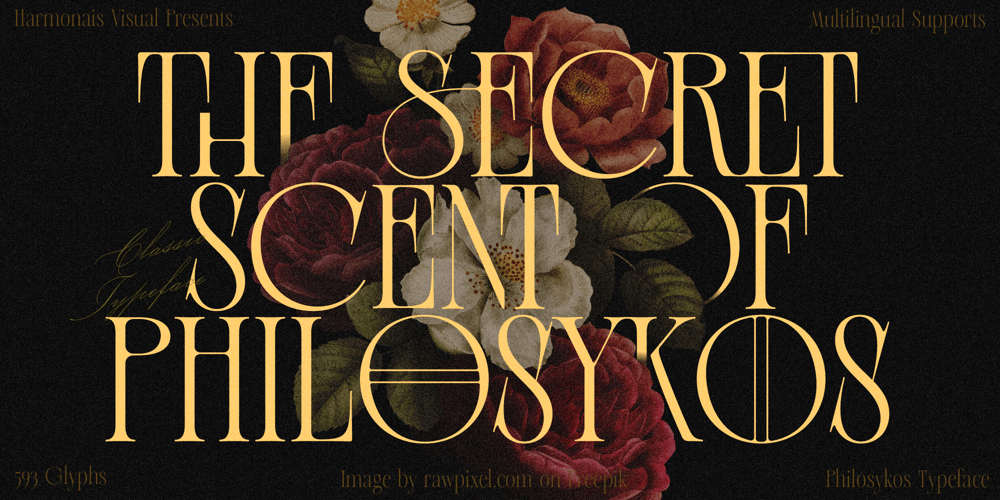
HV Philosykos Font Family was designed by Ivy Xuyen Phan and published by Harmonais Visual. HV Philosykos contains 4 styles and family package options. Looking to add a touch of refinement to your designs? Look no further than Philosykos. With its carefully crafted details and more than 80 ligature choices, Philosykos is the perfect choice for adding a cultured, sophisticated look to your artwork.This typeface comes in four styles – Regular, Italic, Bold, and Bold Italic – making it versatile enough for a wide range of designs. Whether you’re creating a logo, designing packaging, or working on a book cover, Philosykos will help elevate your work to the next level.So if you’re looking for a typeface that exudes elegance and style, look no further than Philosykos. Try it out today and see the difference for yourself.